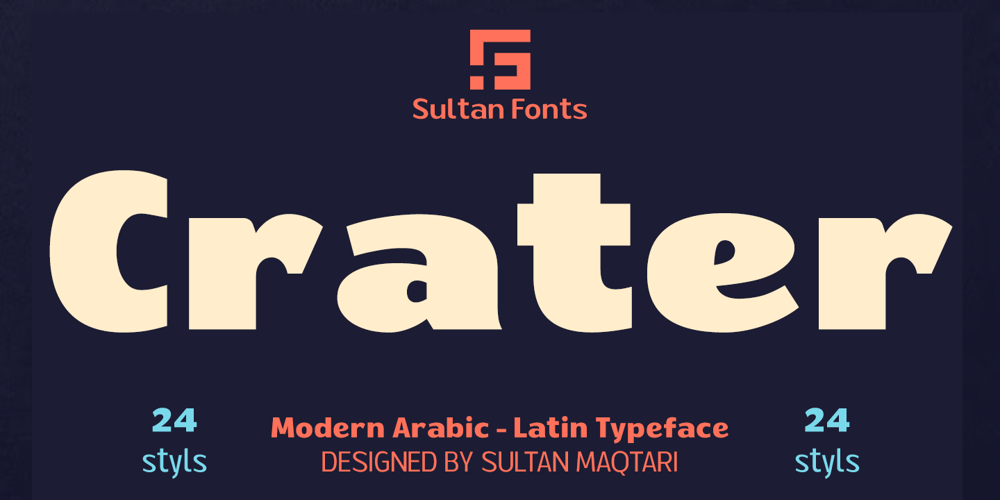
SF Crater
SF Crater font
SF Crater Font Family was designed by Sultan Maqtari and published by Sultan Fonts. SF Crater contains 24 styles and family package options. Crater is one of the largest projects in the Sultan Calligraphy Studio. The font includes a set of 24 different styles that allow working on various typographical and creative fields.The Crater fonts family is built on a dynamic, contemporary, dynamic font, complete with a flexible range of responsive layouts, designed by Sultan Maqtari.The font is clear and legible at small sizes and is suitable for print as well as for large text, web pages, and other visual uses.Font Crater supports languages: Arabic, Kurdish, Persian, Urdu, Default Latin, Azerbaijani Latin, Catalan Latin, Crimean Tatar Latin, Kazakh Latin, Marshall Latin, Dutch Latin, Tatar Latin, and Turkish Latin.الخط كريتر، من احد اكبر المشاريع في ستوديو خطوط سلطان، يضم الخط مجموعة من ٢٤ نمطا متنوعا تسمح بالعمل على مختلف المجالات الطباعية والابداعية.بنيت مجموعة الخط كريتر على خط متغير، معاصر نشط ، مكتمل بنطاق مرن للتخطيطات سريعة الاستجابة، من تصميم سلطان المقطري.الخط واضح ومقروء بأحجام صغيرة ومناسب للطباعة و للنصوص الكبيرة وصفحات الويب والاستخدامات المرئية الأخرى.يدعم الخط كريتر اللغات : العربية ، الكردية ، الفارسية ، الاوردو ، اللاتينية الافتراضية ، لاتينية أذربيجانية ، لاتينية كتالونية ، لاتينية تتارالقرم ، لاتينية كازاخية ، لاتينية مارشال ، لاتينية هولندية ، لاتينية تتارية ، لاتينية تركية.